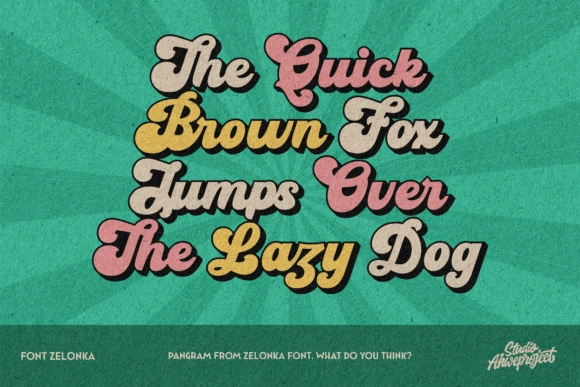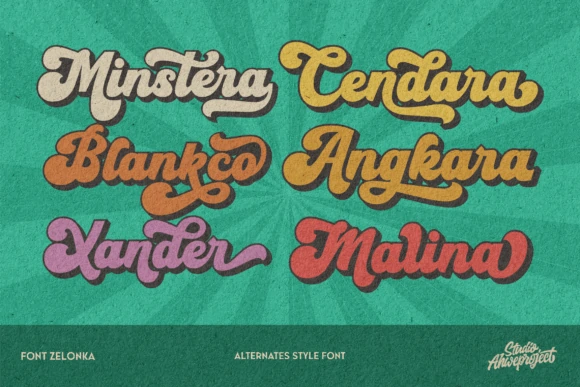
Zelonka is a bold and stylish retro script typeface that blends modern design with vintage charm. Its smooth curves, lively letterforms, and dynamic swashes create a nostalgic yet fresh look, making it a perfect choice for any design that needs a groovy touch. Inspired by classic typography from past decades, this font brings personality and energy to any project.
With five unique styles to choose from, Zelonka offers flexibility for various creative needs. Whether you’re designing posters, logos, branding, packaging, or headlines, its bold presence ensures maximum visual impact. The font’s fluid strokes and playful details make it a great fit for projects that require both elegance and a fun, retro aesthetic.
Whether you’re working on a throwback-themed design or simply want to make your text stand out, Zelonka provides the perfect balance of vintage and modern appeal. Its versatility allows designers to experiment with different styles, ensuring that each project captures the right mood and personality with a touch of nostalgic flair.